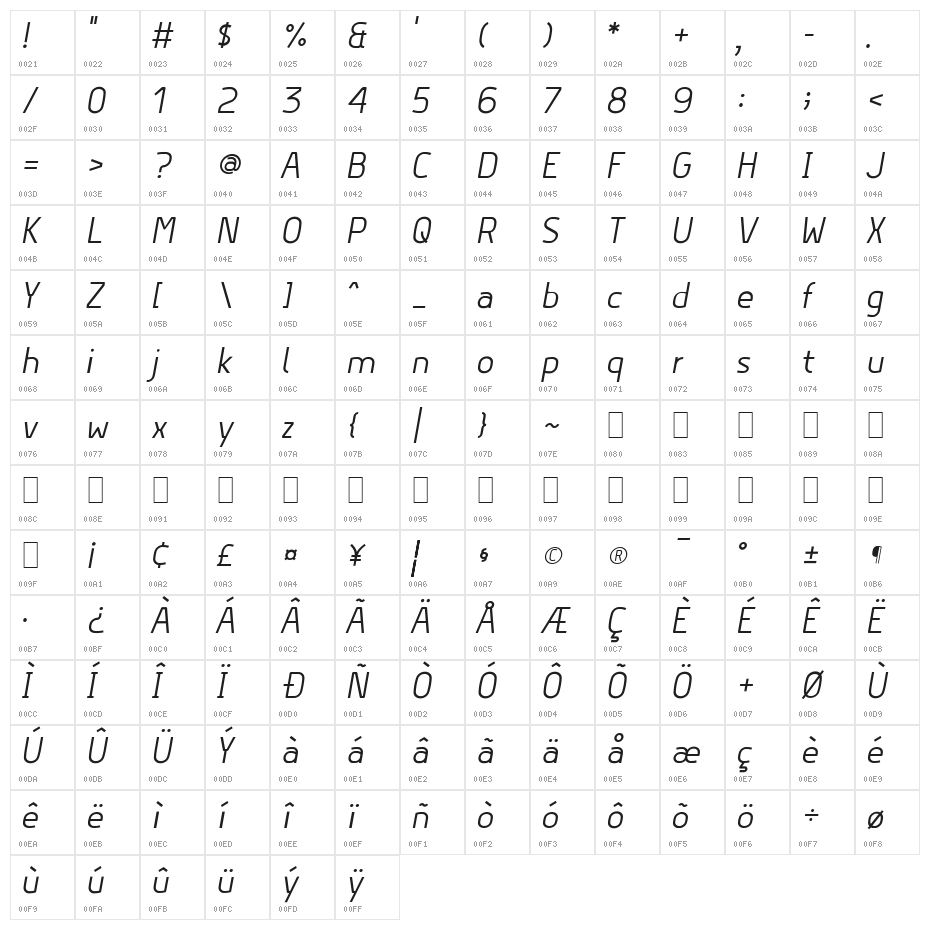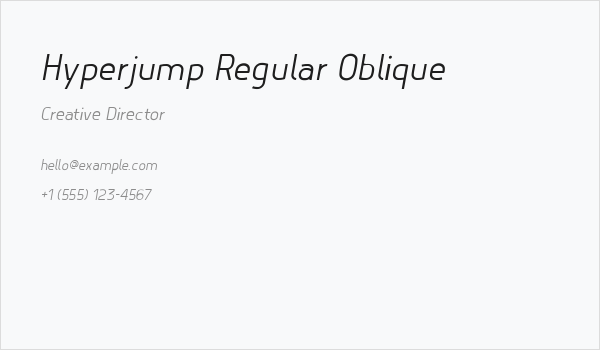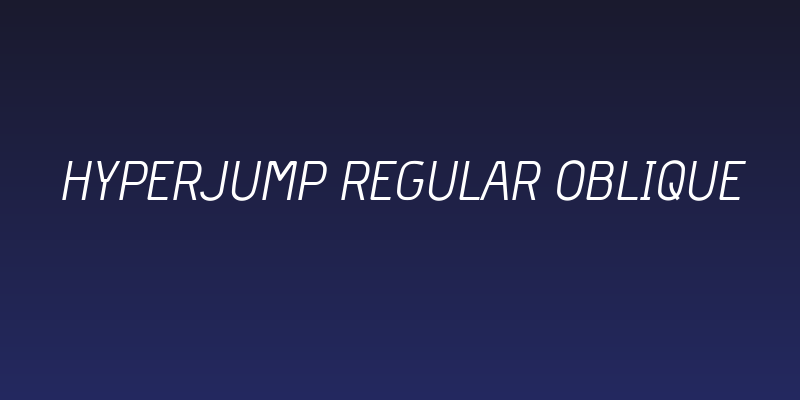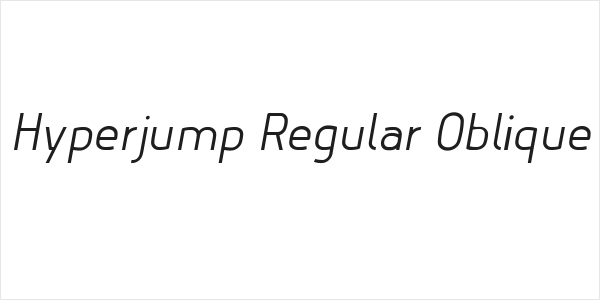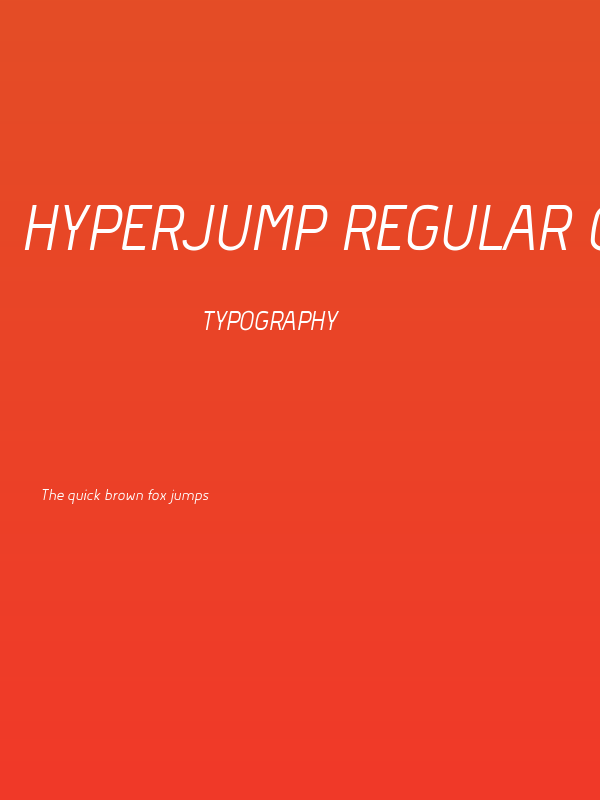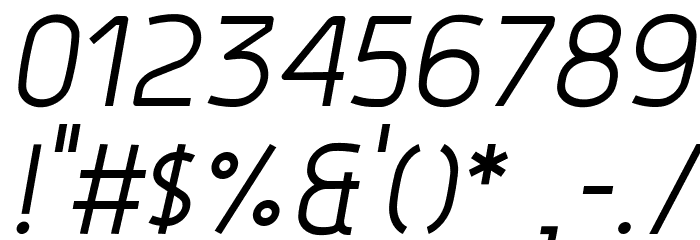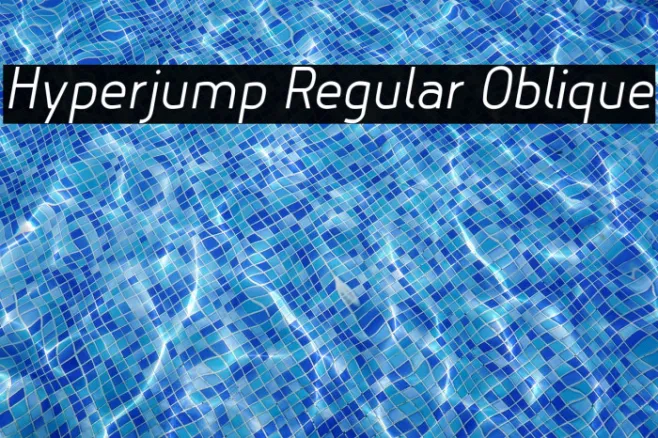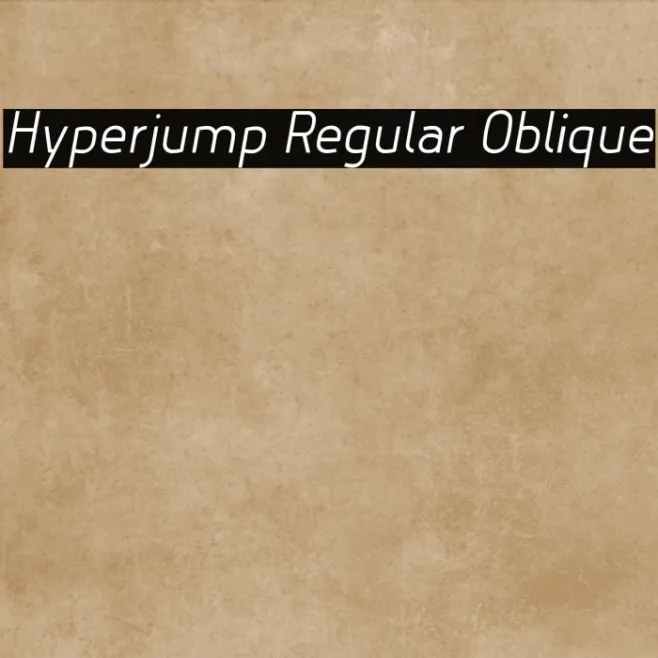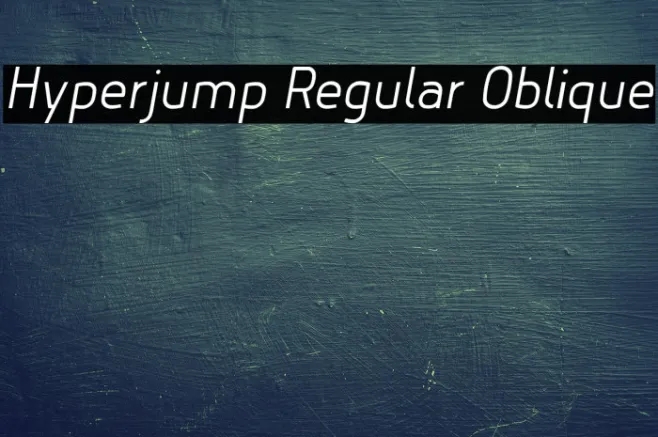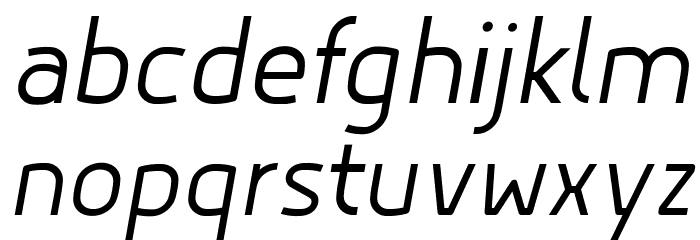
Hyperjump Regular Oblique Font
Hyperjump Regular Oblique Description
This font features a sleek, modern design with a slight oblique slant, giving it a dynamic and forward-moving appearance. The characters are clean and streamlined, with consistent stroke widths that convey a sense of precision and clarity. The uppercase and lowercase letters maintain a harmonious balance, while the numerals and special characters are crafted to ensure readability and aesthetic appeal. The overall design is versatile, making it suitable for a variety of digital and print applications.
| Proposed Projects | Ideal for tech branding, digital interfaces, modern advertising, and editorial design. |